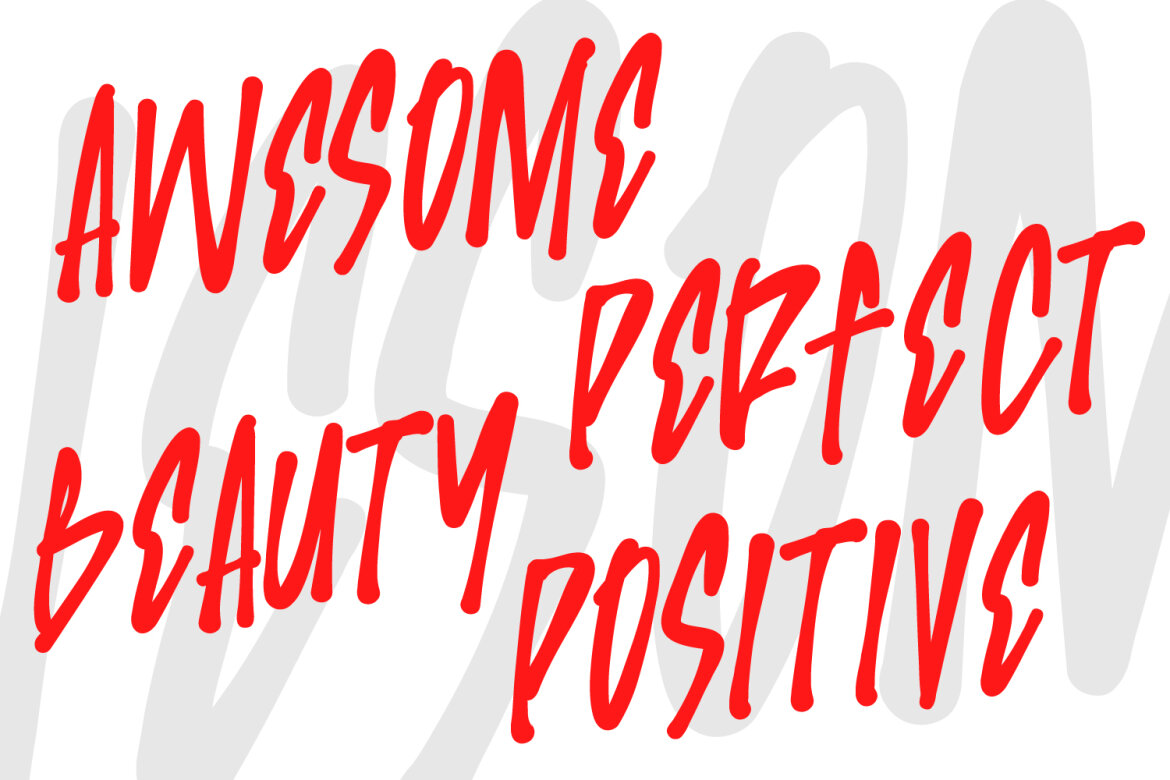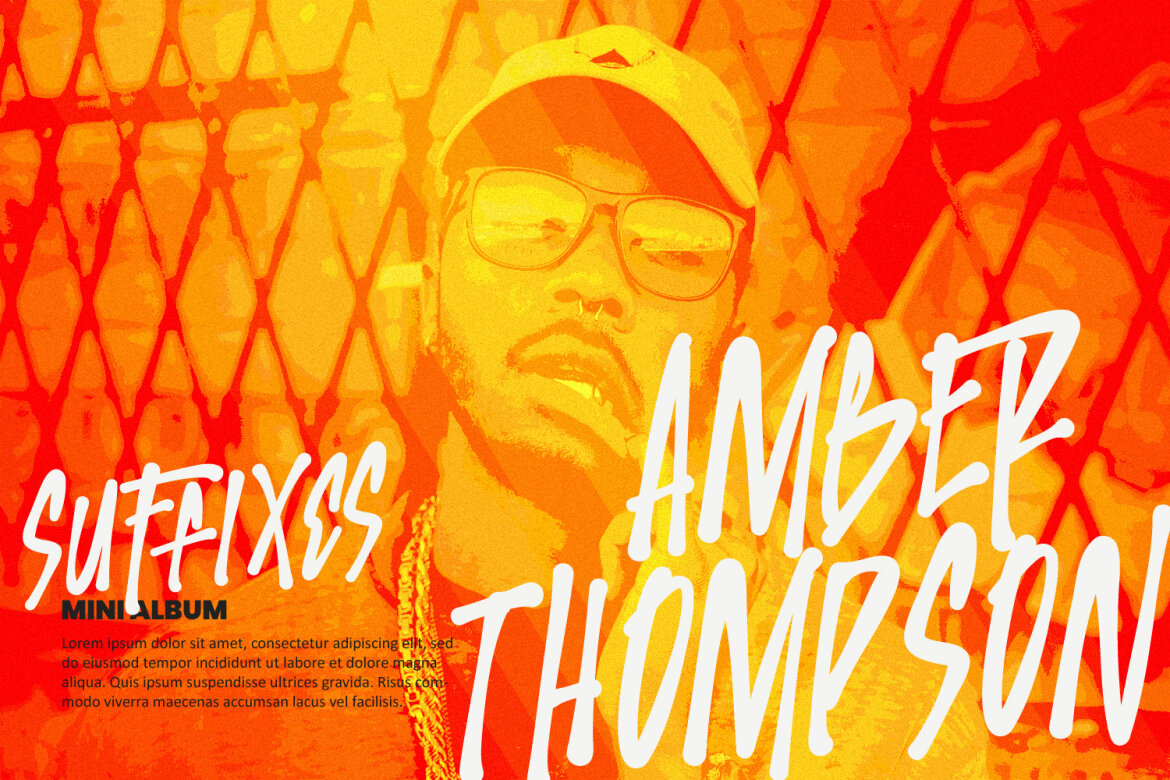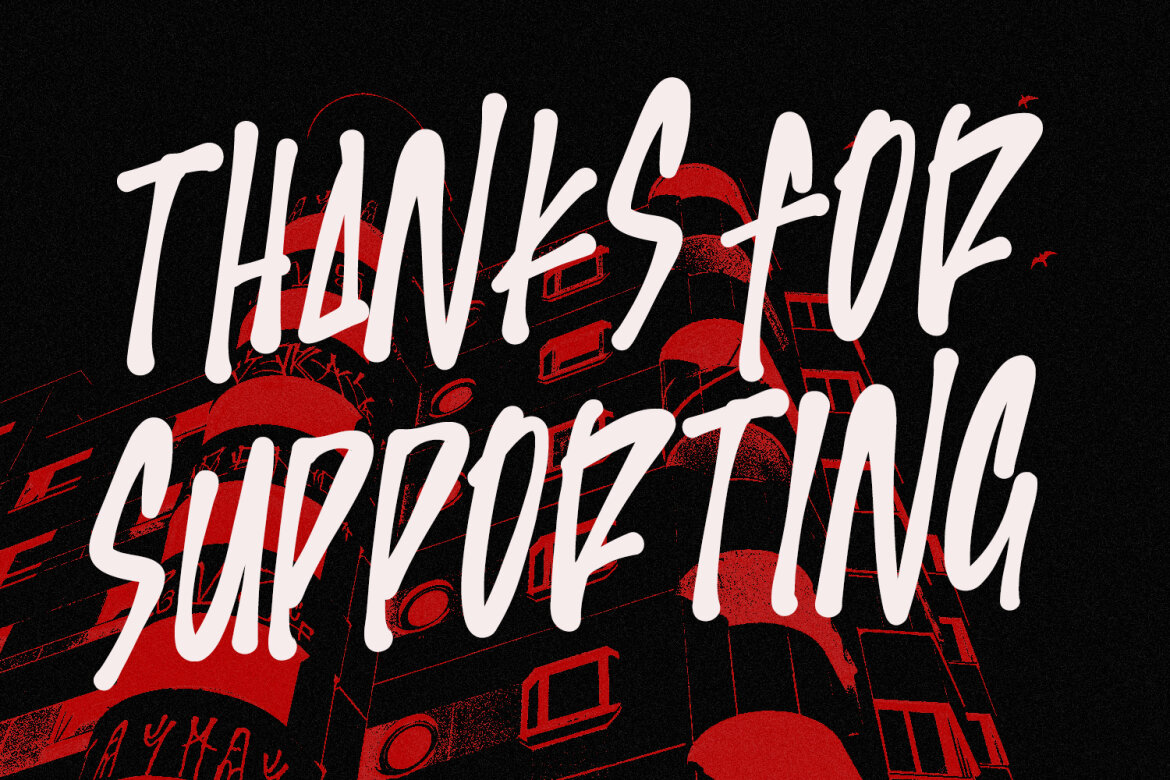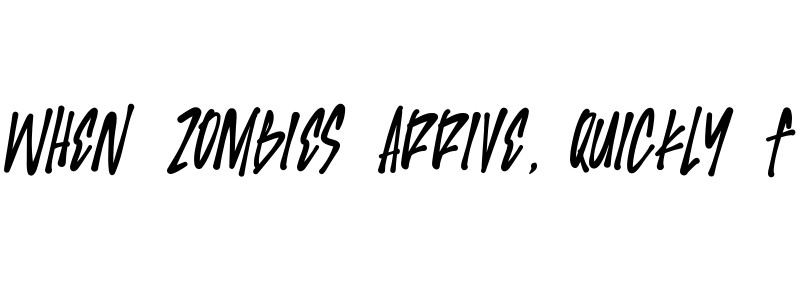
Klowin Beruar FREE Energetic Font
Klowin Beruar
Unleash your creativity with Klowin Beruar, a powerful and dynamic display font. With its bold, hand-drawn brush strokes, this font captures a raw, authentic energy perfect for making a statement. Klowin Beruar is more than just a typeface it's an attitude. The free flowing, urban aesthetic makes it ideal for projects that demand attention. Use it for music, edgy designs, social media, or event promotions. Its versatility shines across a range of applications, from branding.
• Numbers and punctuation
• Multilingual Support
• Ligatures and Alternate Style